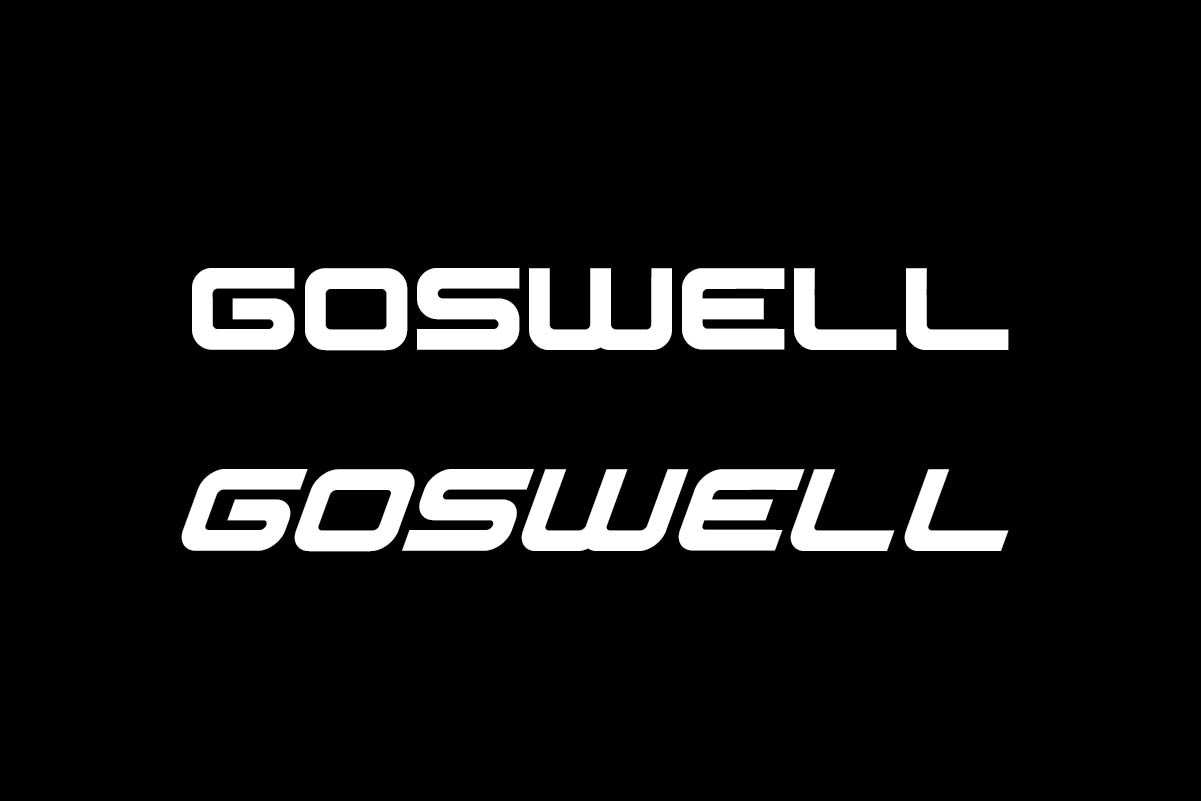
Goswell Sans Serif Font
Goswell Font is a modern and strong sans serif font designed by Rais Project. The font has unique style that is great for Sports, Technology, Game, Magazine, products, brand company etc.
Goswell Font is a modern and strong Sans Serif Display font family, inspired from sports and technology industries, designed by RaisProject. You can see the demo font below. You can also input any word you want so you can see what it will look like :
Goswell Modern Font designed by RaisProject team in Indonesia. The font is great for any your projects including : brandings, advertising, magazine, signage, invitation, stationery, social media posts, label, or and any projects that need unique minimal style. The industries for this font is Fintech, Startup, Automotive, Apps, Cosmetic, Travel, Technology, Game, Magazine, Music, Sports etc Goswell Sporty Font have two style options : Regular and Italic Style. On the zip package You will get: